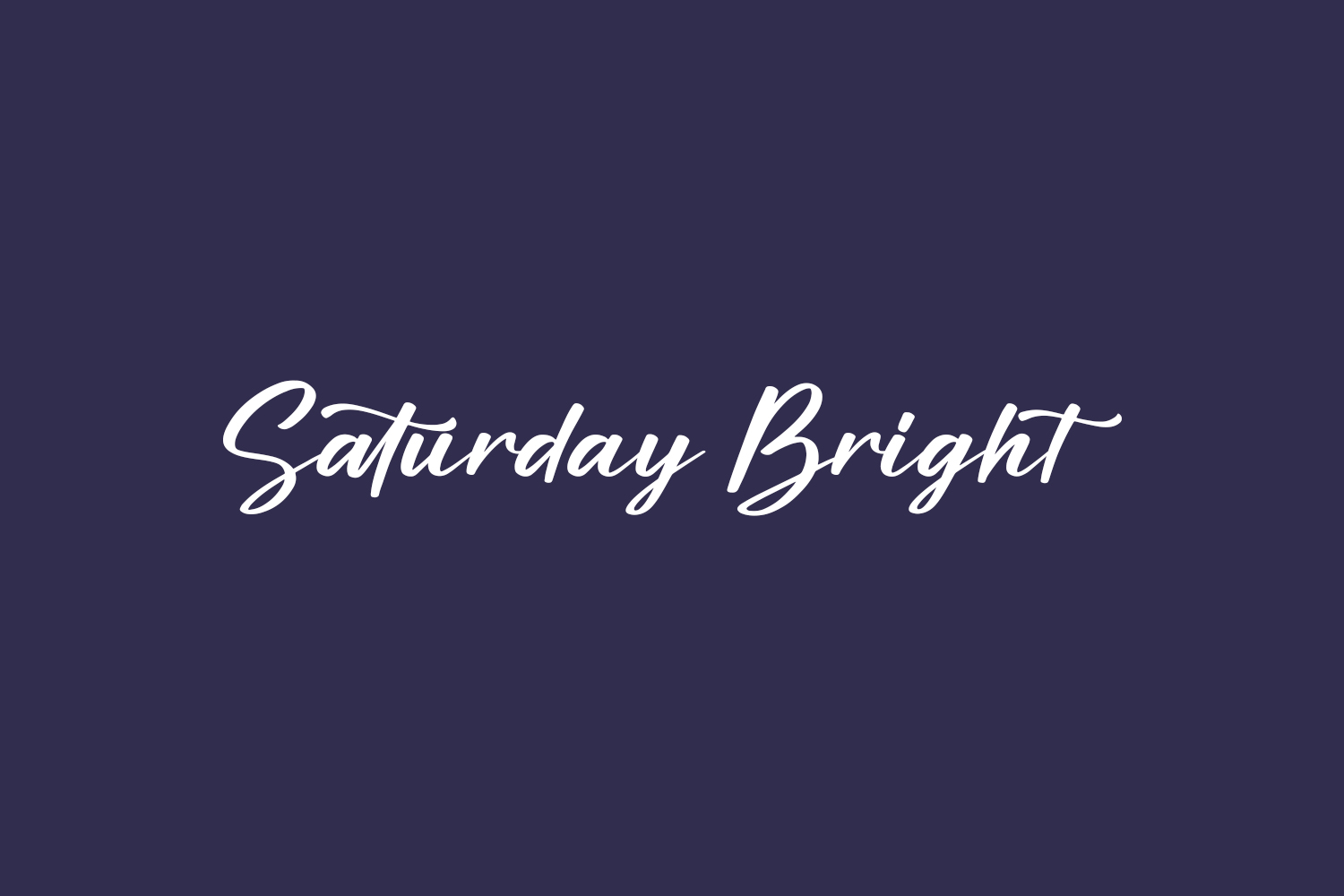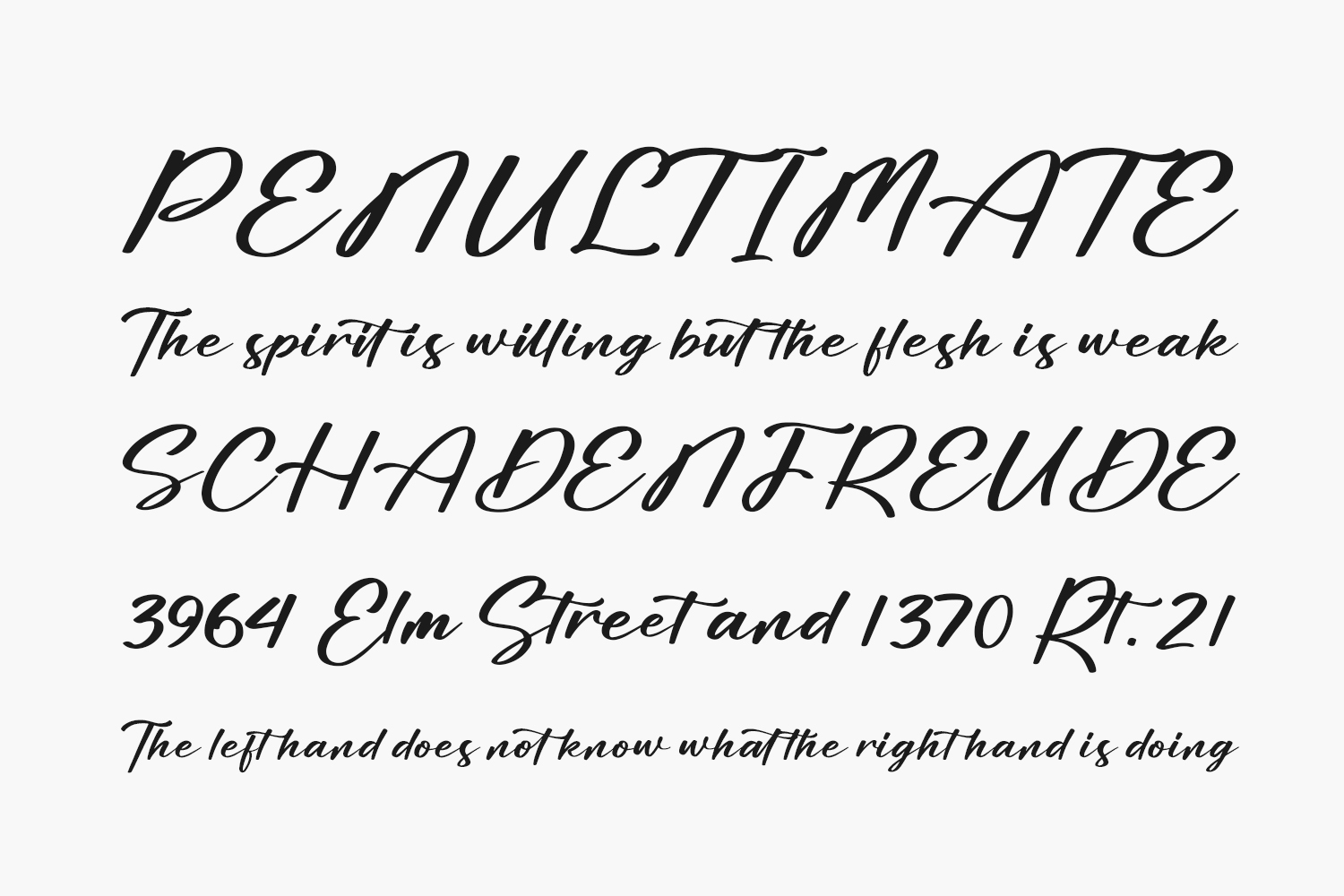
Saturday Bright Free Font Family is a lovely and delicate script font that exudes elegance and class. This font was particularly crafted for those who need a beautiful and refreshing look to their designs. Saturday Bright Free Font Family is a lovely and delicate script font that exudes elegance and class. This font was particularly crafted for those who need a beautiful and refreshing look to their designs. Saturday Bright Free Font Family was designed by Perspectype Studio and is free for personal use only. Please purchase the full version for commercial use.